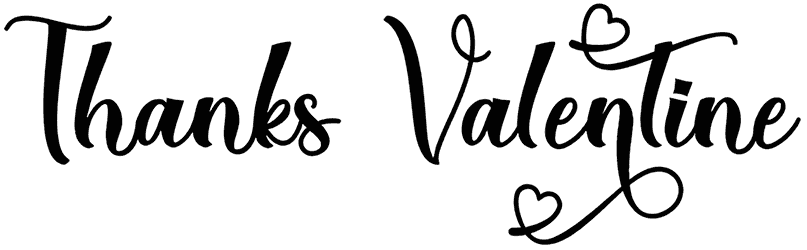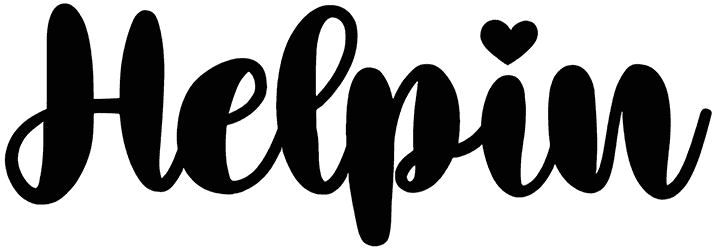
Rosalie Font
A touch of class can be easily added to any design with the help of Rosalie, a beautiful heart font. The graceful curves of this font make it perfect for formal settings like wedding invitations and stationery.
Rosalie can also be used for branding, marketing materials, and other creative projects that call for a more stylish and sophisticated look. Rosalie is available for free on RB’s website if you’d like to use it in your projects.
Designed by: Letter Art Studio